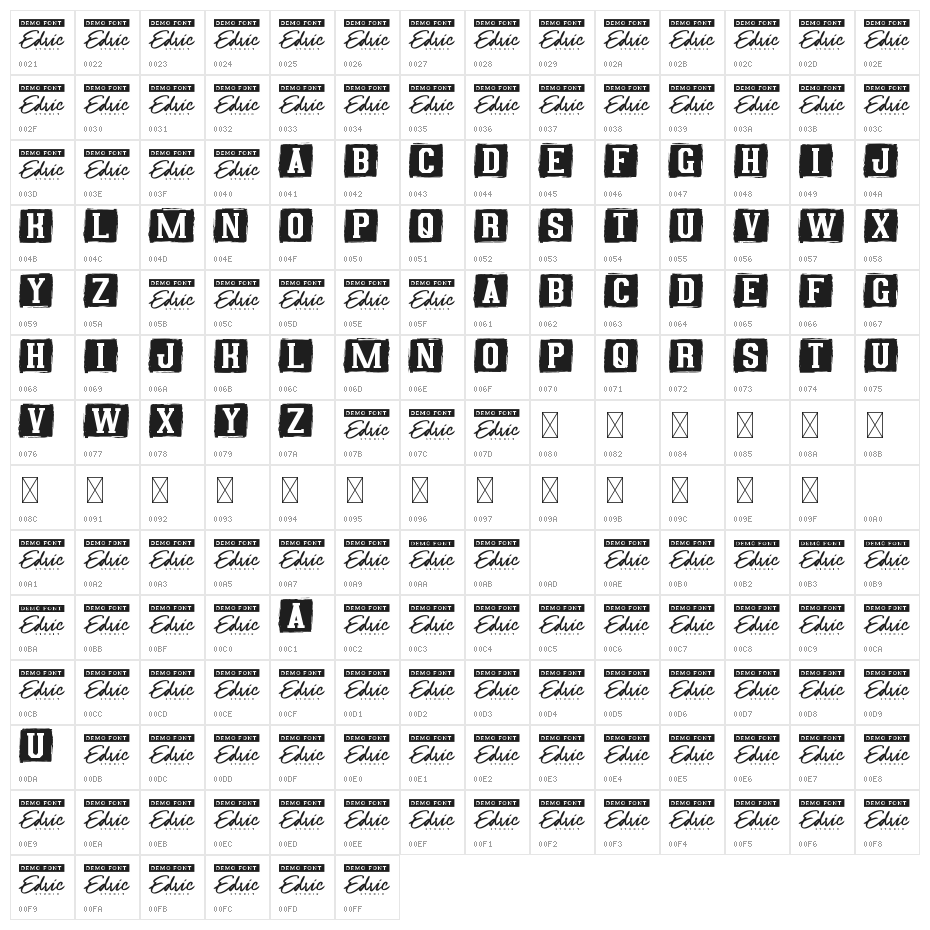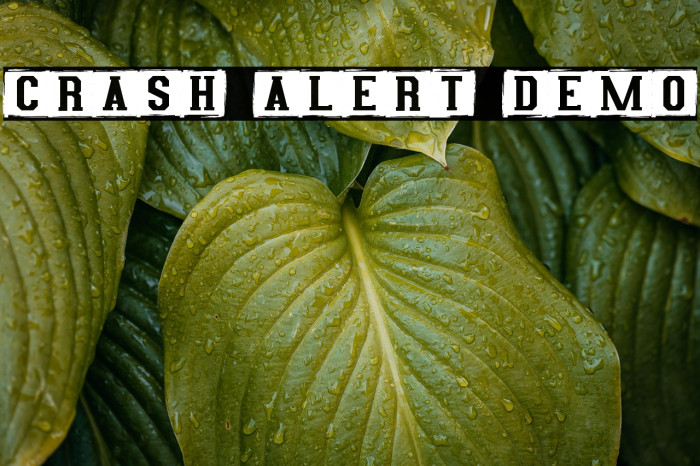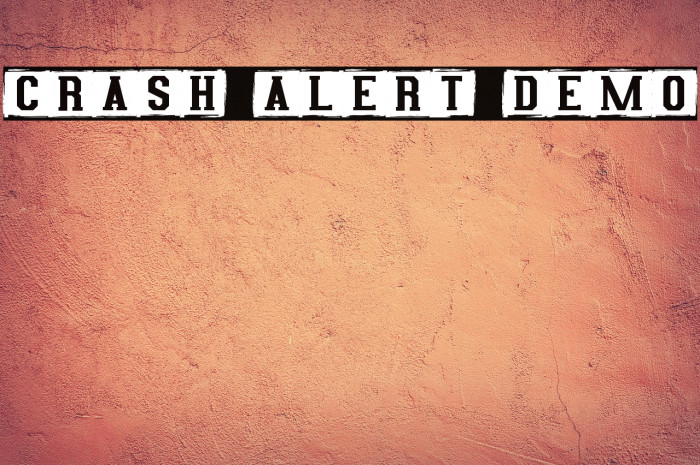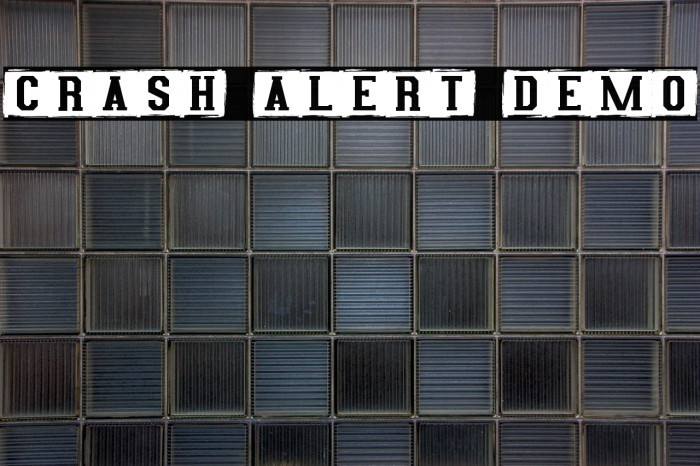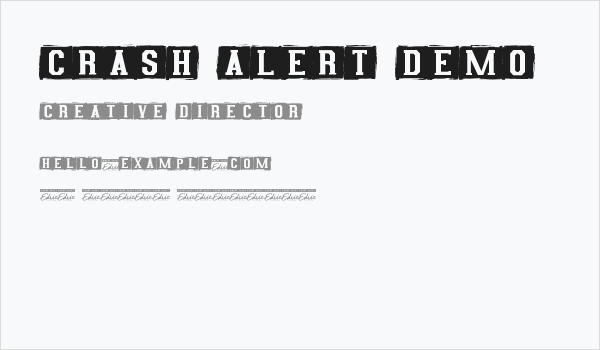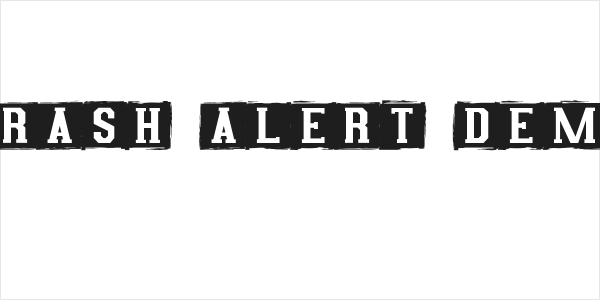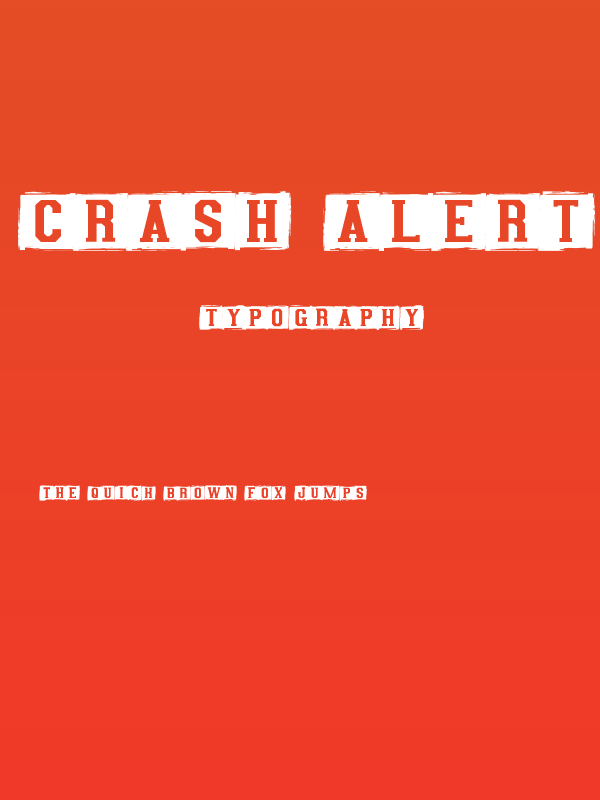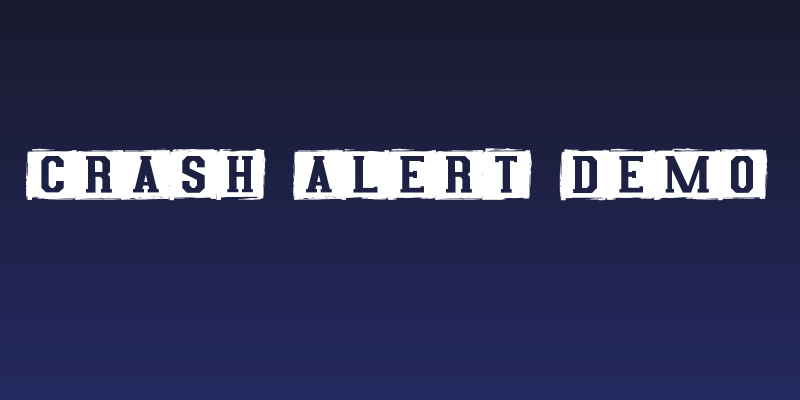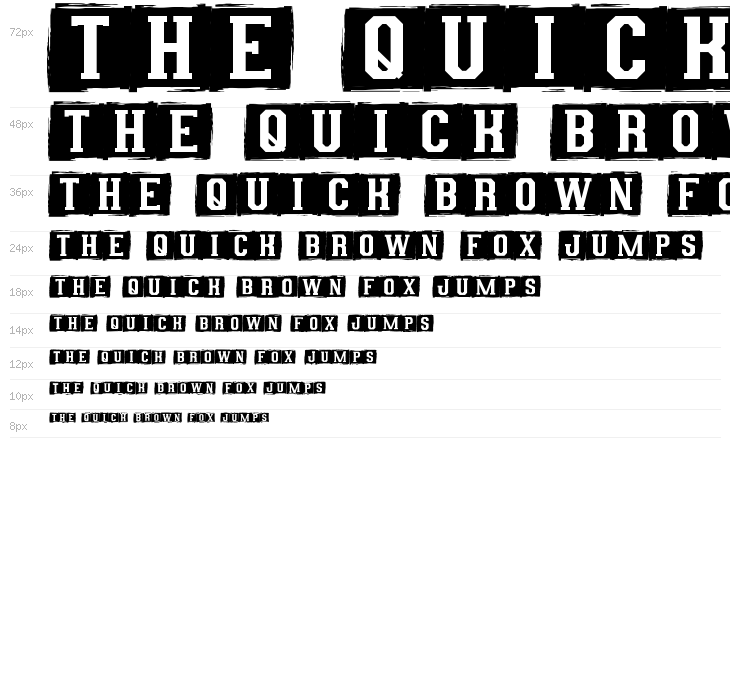
Crash Alert Demo Font
Crash Alert Demo Description
This font features a bold and impactful design with a distressed, grunge aesthetic. Each character is enclosed within a rough, rectangular box, giving it a unique, edgy appearance. The uppercase letters are prominent and stand out with their thick strokes and high contrast against the background. This style is reminiscent of a vintage or industrial theme, making it ideal for projects that require a strong visual presence. The font's rugged texture adds character and depth, making it suitable for creative and artistic designs.
| Overall Style | Vintage, Industrial |
| Proposed Projects | Ideal for posters, album covers, branding, and any project needing a bold, edgy look. |